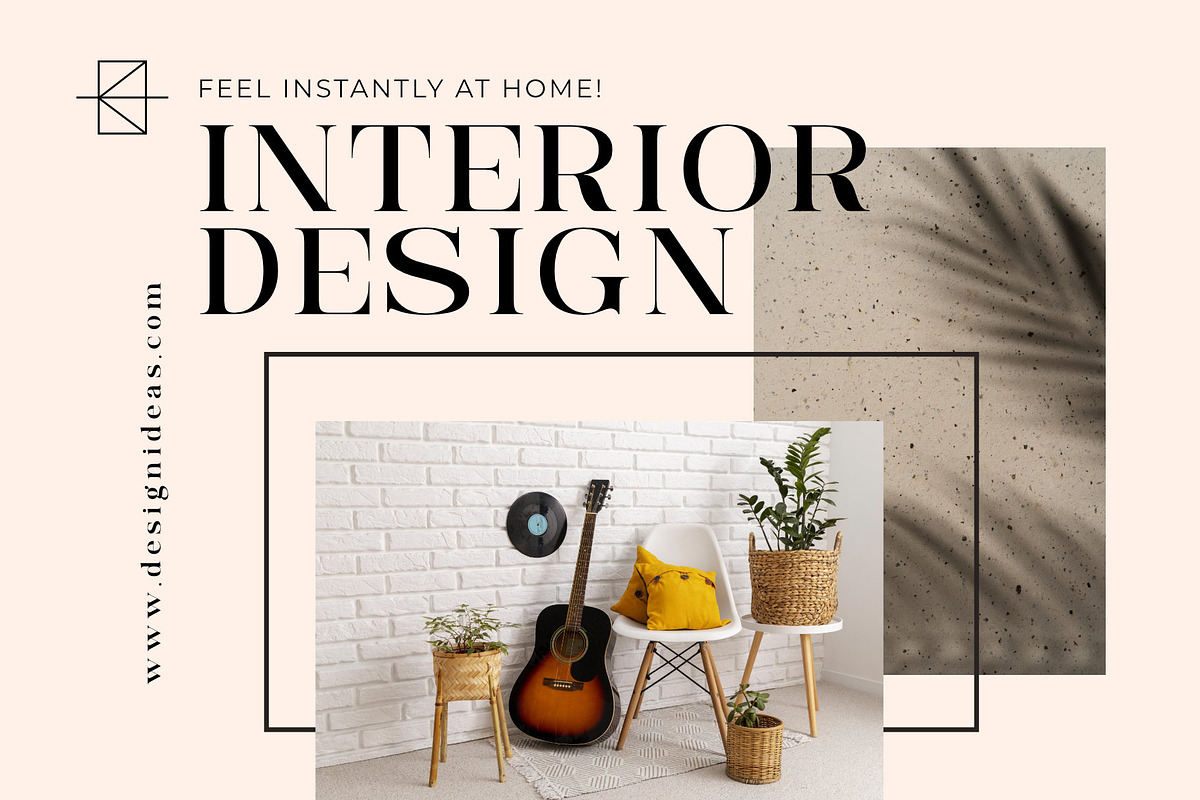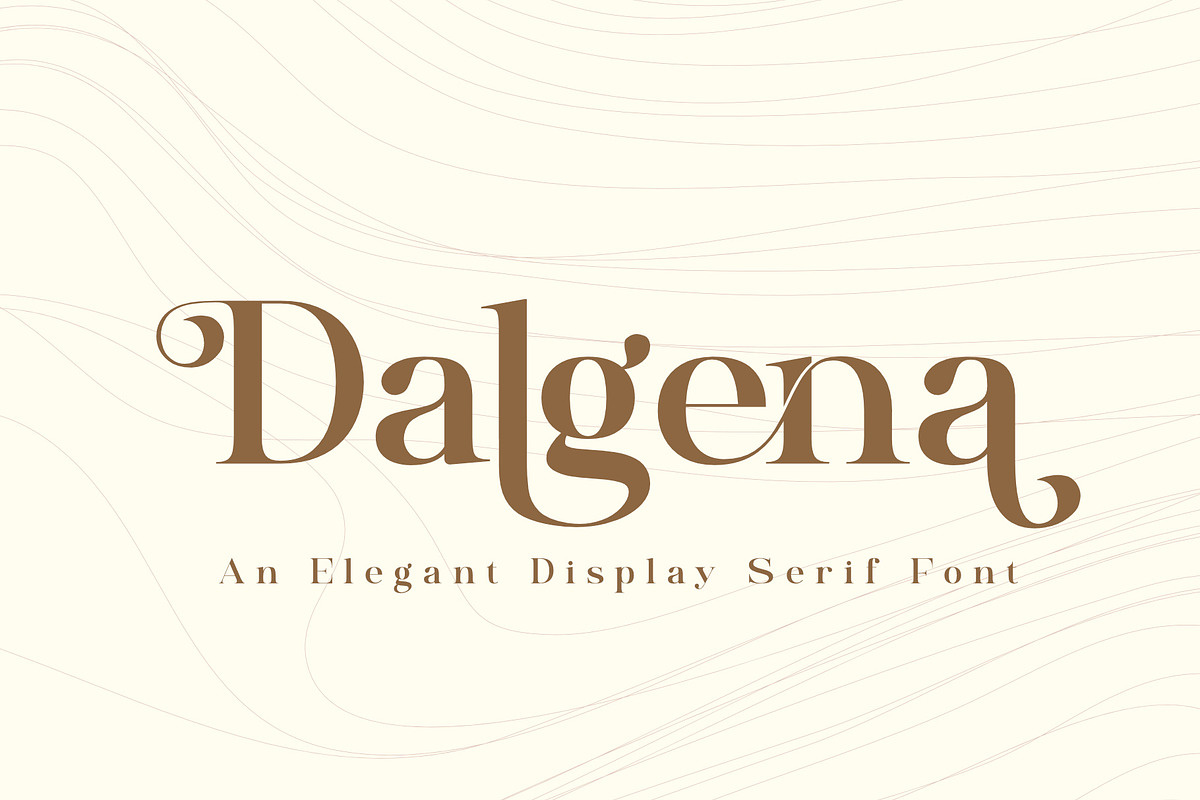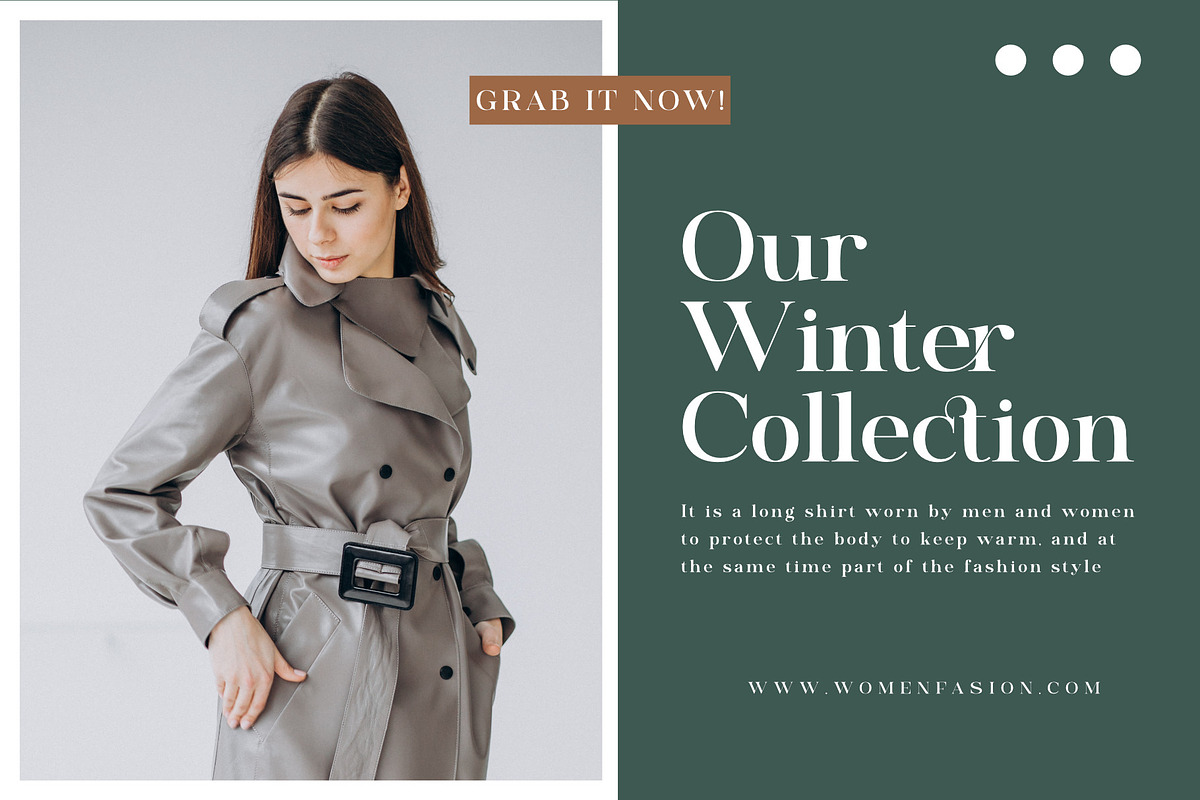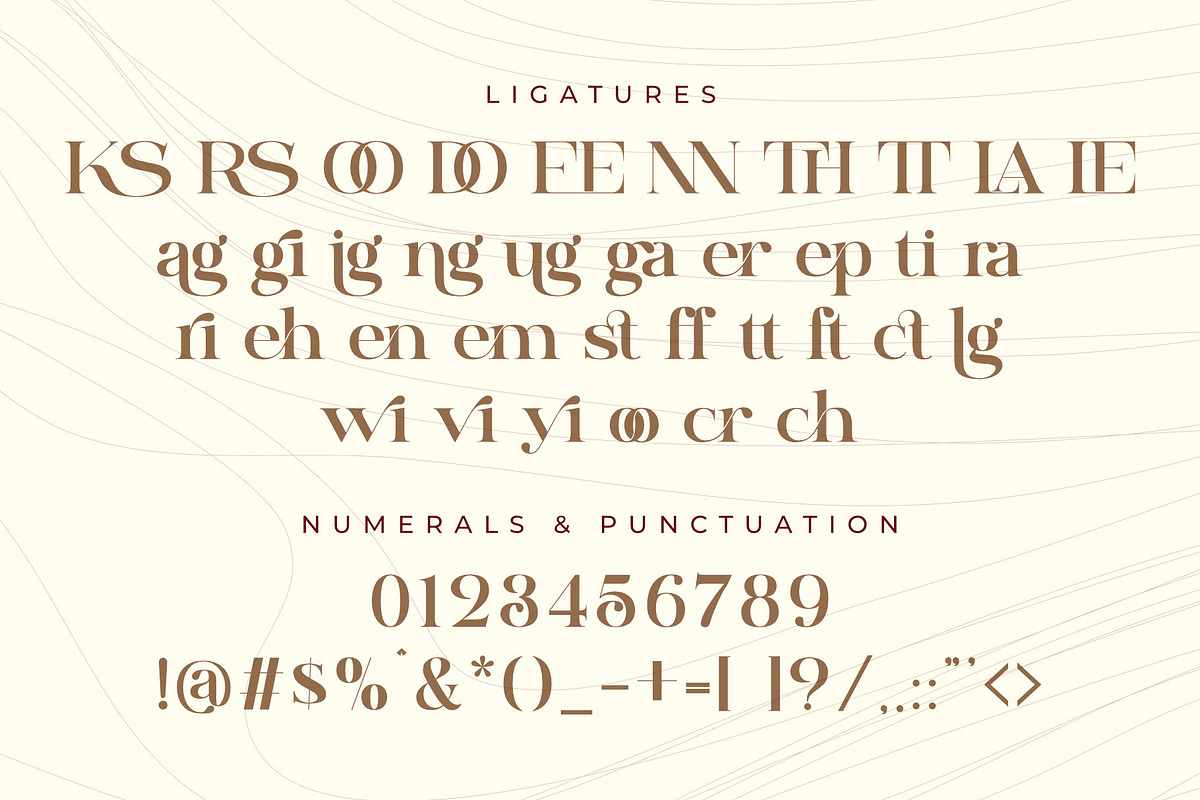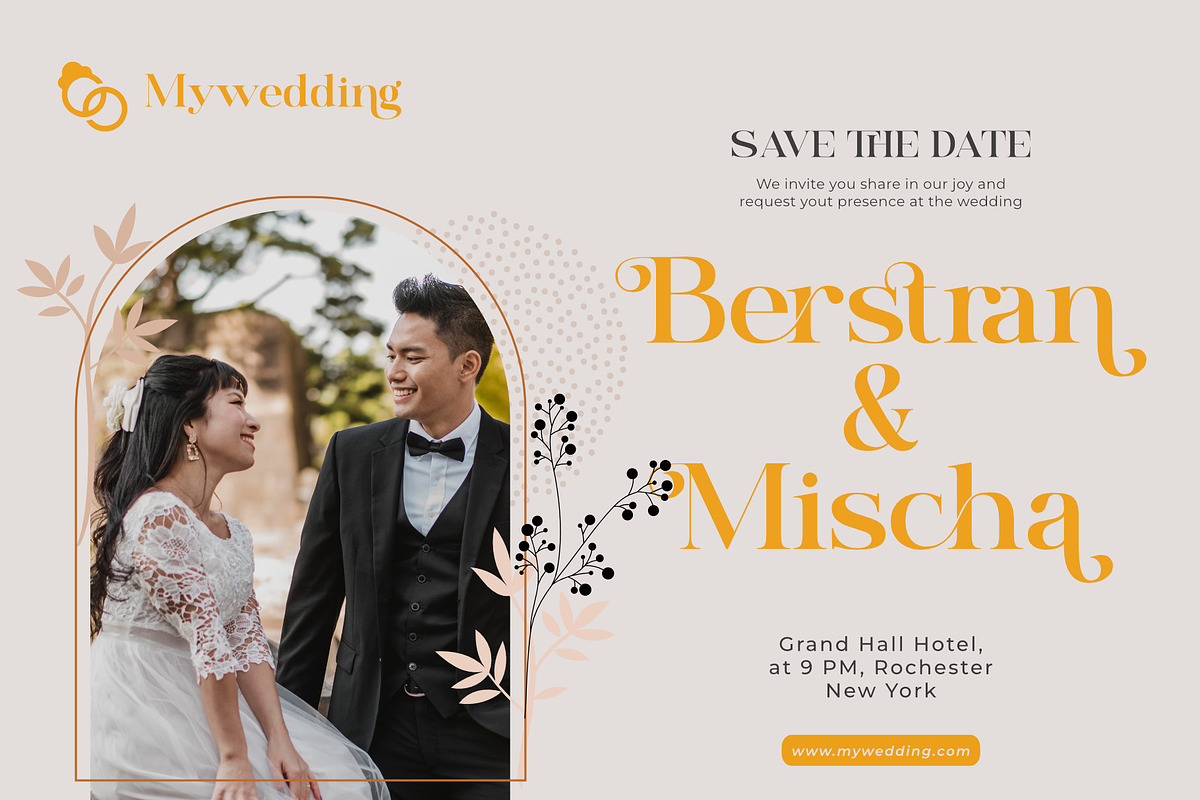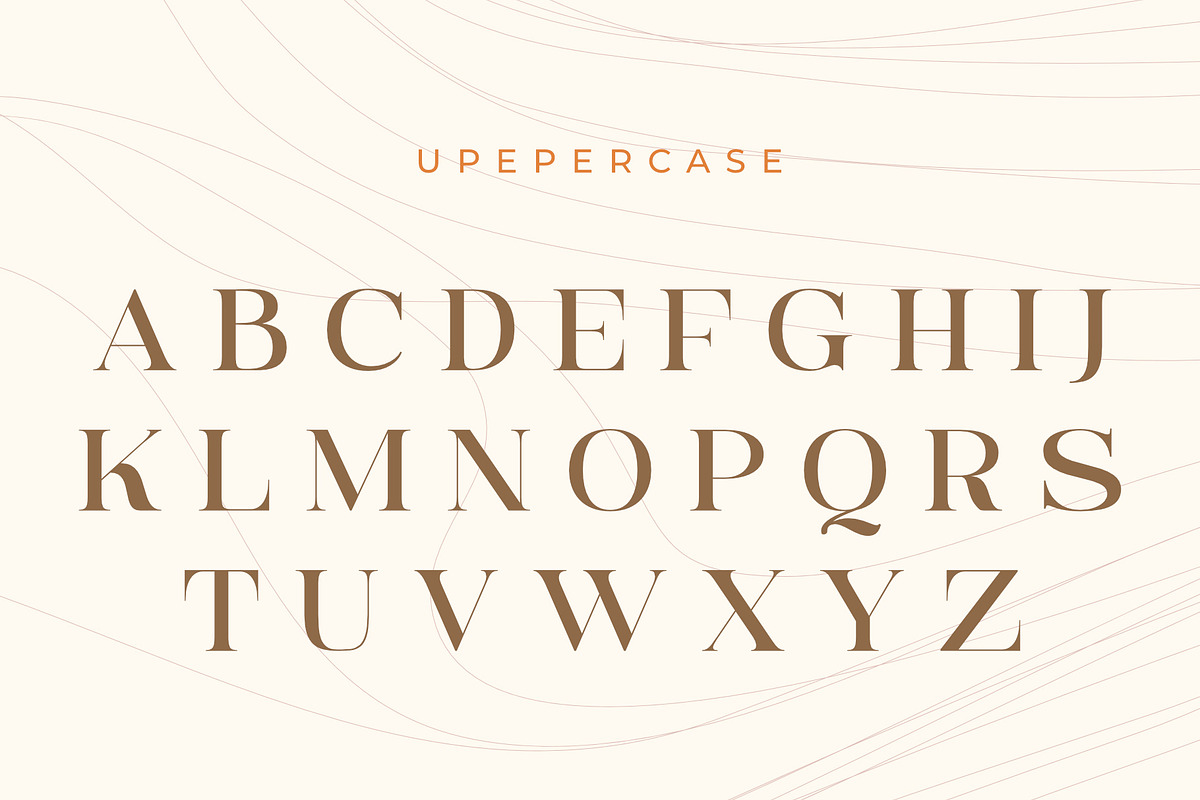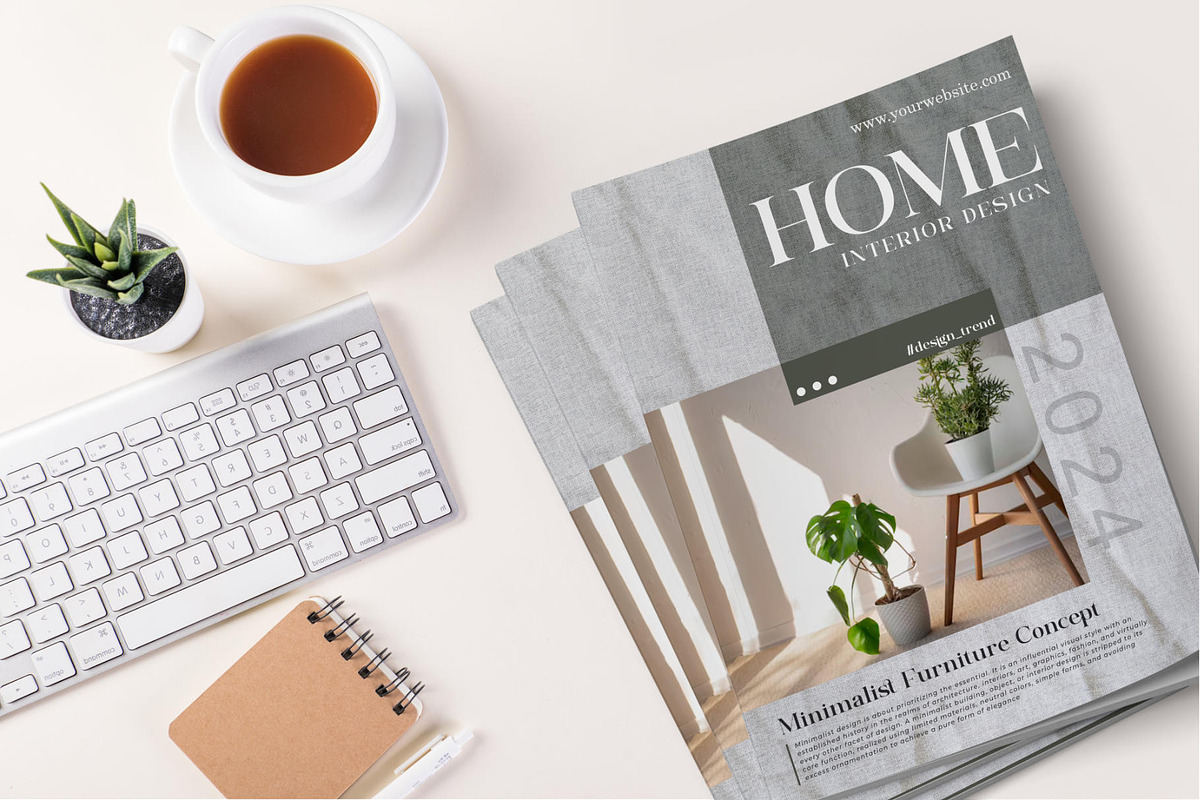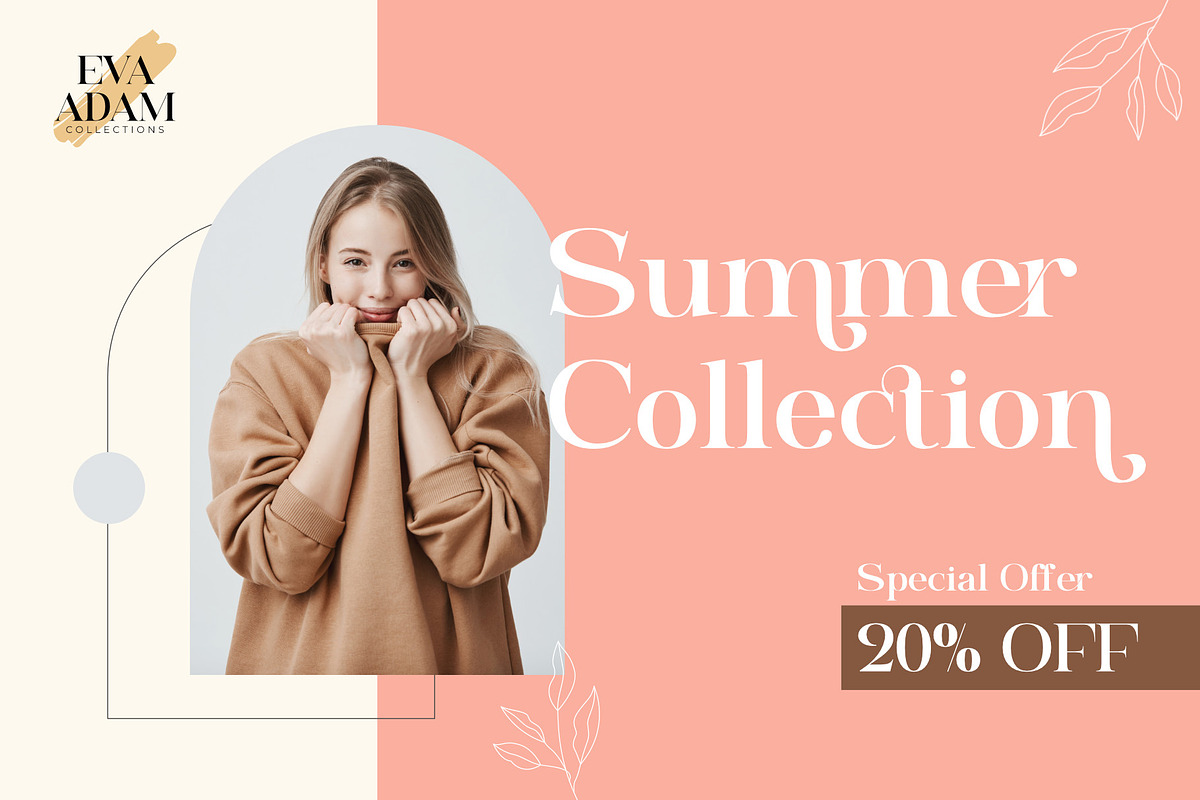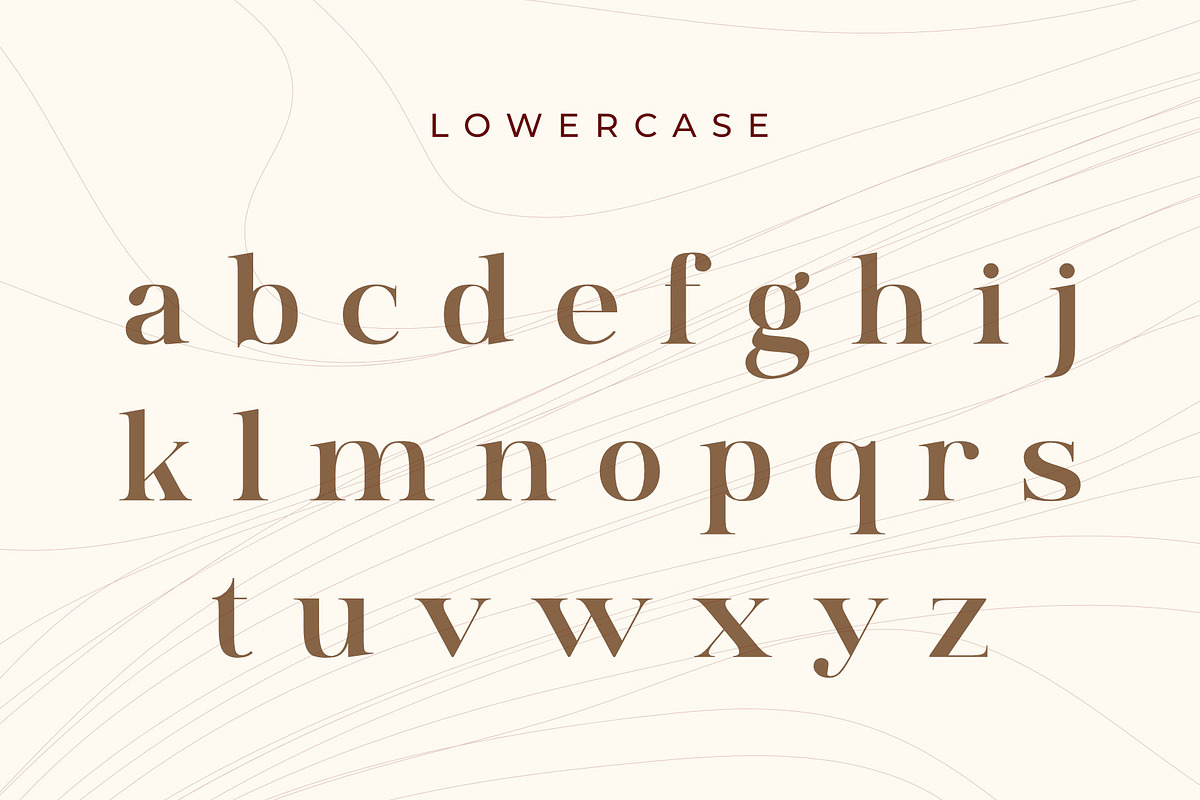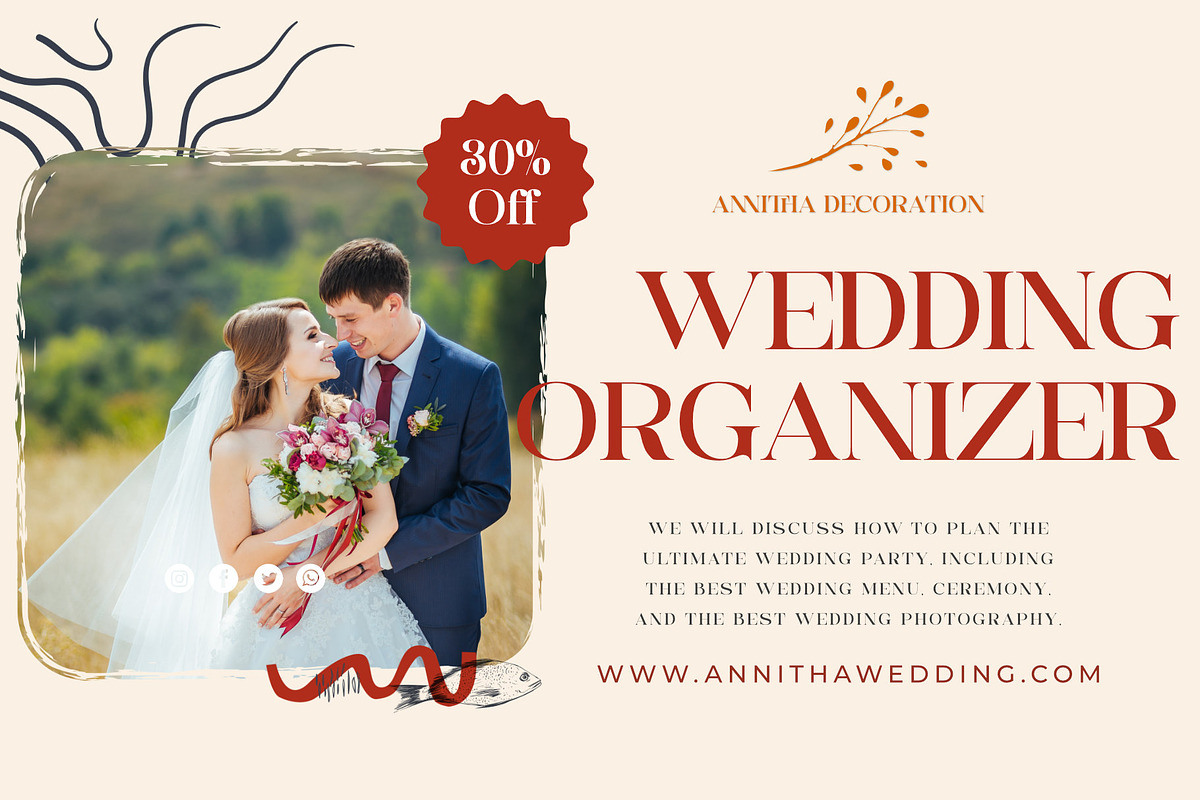
Dalgena | An Elegant Display Serif
Dalgena is an elegant modern display serif font that is perfect for fashion, branding, and logo design projects. This font features unique alternates and ligatures that add beauty and flair to your texts. Whether you are looking for a font for a clothing line, a beauty brand, or a lifestyle blog, Dalgena will give you the perfect look. Dalgena is easy to use and versatile, giving your designs a fresh and modern look. The font’s elegant curves and sharp edges make it ideal for designs that require a touch of sophistication and elegance. You can use Dalgena for logos, branding, posters, flyers, invitations, and more. Download Dalgena today and discover the beauty of this elegant modern display serif font.
- Alternates and Ligatures